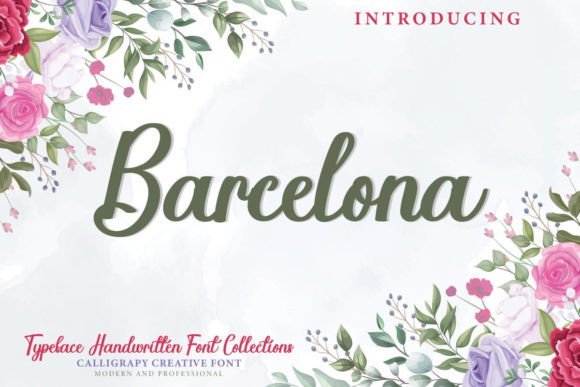
Unleash Your Creativity with Barcellona Font Have you ever been working on a project and suddenly, a spark of inspiration hits you? The ideas start flowing, and you can’t wait to bring your vision to life. This is exactly what happened to me when I stumbled upon the Barcellona Font. Its delicate, elegant, and flowing…